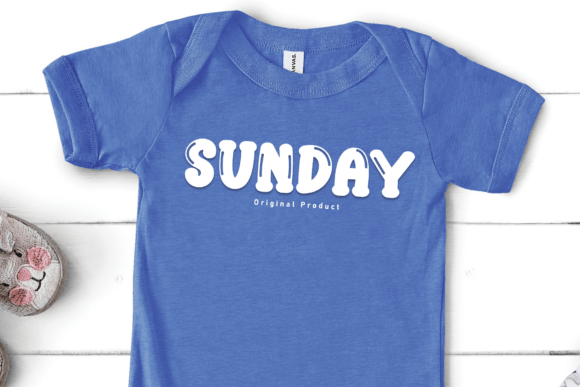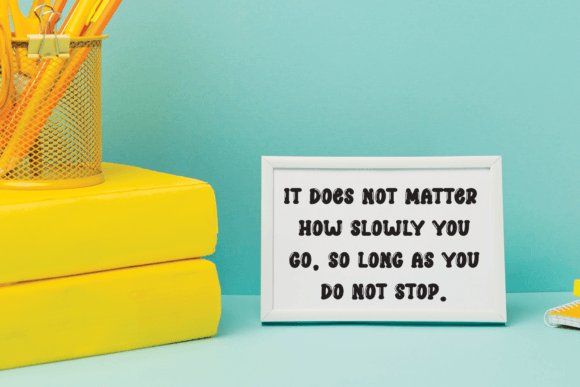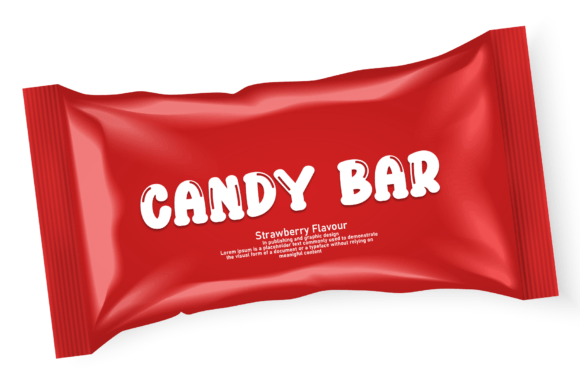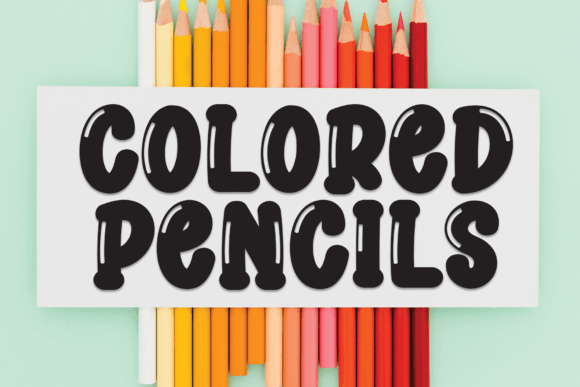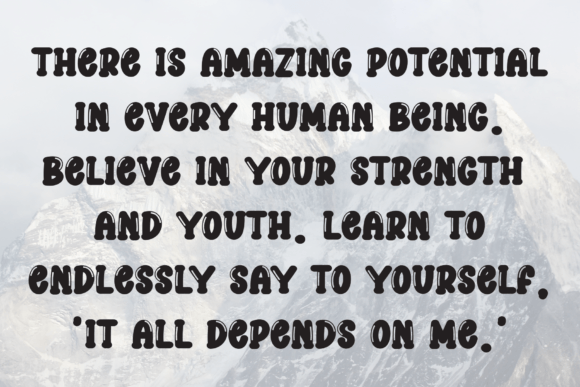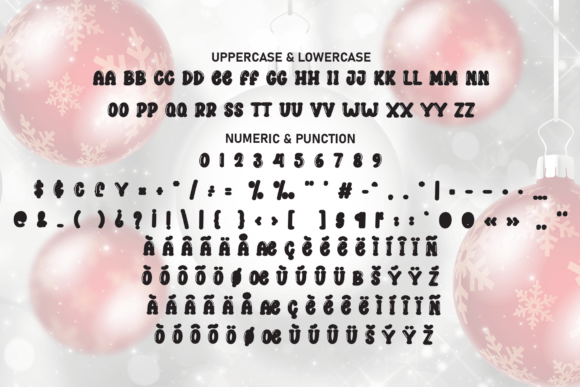
Bubble Christmas Font: Add a Playful Touch to Your Holiday Designs
The holiday season is upon us, and with it comes the need for festive and fun designs that capture the spirit of Christmas. If you’re a designer or crafter looking for a unique and playful font to add to your holiday creations, look no further than the Bubble Christmas font. This delightful font features rounded, bubbly letters that are sure to bring a cheerful touch to your holiday greetings, cards, and decorations.
What is Bubble Christmas Font?
Bubble Christmas font is a fun and playful font that is specifically designed for the holiday season. Its rounded, bubbly letters are reminiscent of childhood wonder and excitement, making it perfect for creating festive and fun designs. The font’s soft shapes and friendly style make it easy to read and full of holiday spirit, making it ideal for a wide range of applications, from holiday cards and decorations to social media graphics and blog posts.
Key Features of Bubble Christmas Font
- Rounded and Bubbly Letters: The Bubble Christmas font features rounded, bubbly letters that are sure to add a playful touch to your designs.
- Easy to Read: The font’s soft shapes and friendly style make it easy to read, even at small sizes.
- Festive and Fun: The Bubble Christmas font is specifically designed for the holiday season, making it perfect for creating festive and fun designs.
- Versatile: The font is suitable for a wide range of applications, from holiday cards and decorations to social media graphics and blog posts.
Uses for Bubble Christmas Font
The Bubble Christmas font is perfect for a wide range of applications, including:
- Holiday Cards: Add a playful touch to your holiday cards with the Bubble Christmas font.
- Decorations: Use the font to create festive decorations, such as garlands, banners, and signs.
- Social Media Graphics: Add some holiday cheer to your social media graphics with the Bubble Christmas font.
- Blog Posts: Use the font to add a festive touch to your holiday blog posts.
- Crafting Projects: The Bubble Christmas font is perfect for a wide range of crafting projects, from scrapbooking to card making.
Tips for Using Bubble Christmas Font
Here are a few tips for using the Bubble Christmas font:
- Use it with Holiday Colors: Pair the Bubble Christmas font with traditional holiday colors, such as red and green, to create a festive look.
- Add some Glitter: Add some glitter or other festive effects to your text to give it a more holiday feel.
- Experiment with Sizes: Experiment with different font sizes to create a more dramatic effect.
- Combine with Other Fonts: Combine the Bubble Christmas font with other fonts to create a unique and interesting look.
The Bubble Christmas font is a fun and playful font that is perfect for adding a cheerful touch to your holiday designs. Its rounded, bubbly letters and soft shapes make it easy to read and full of holiday spirit. Whether you’re a designer or crafter, the Bubble Christmas font is sure to become a favorite in your holiday design arsenal. So why not give it a try and add some festive fun to your holiday creations?